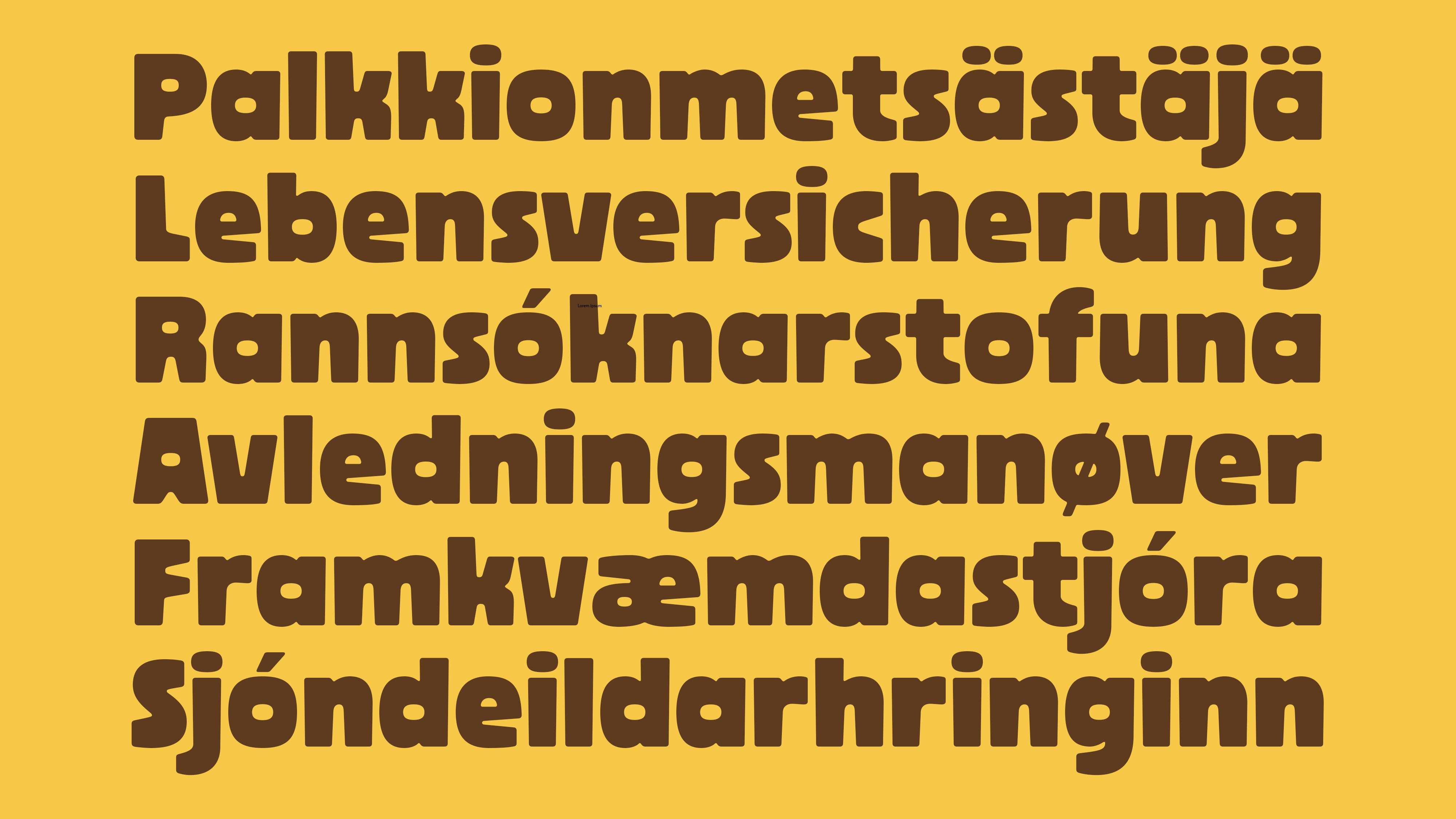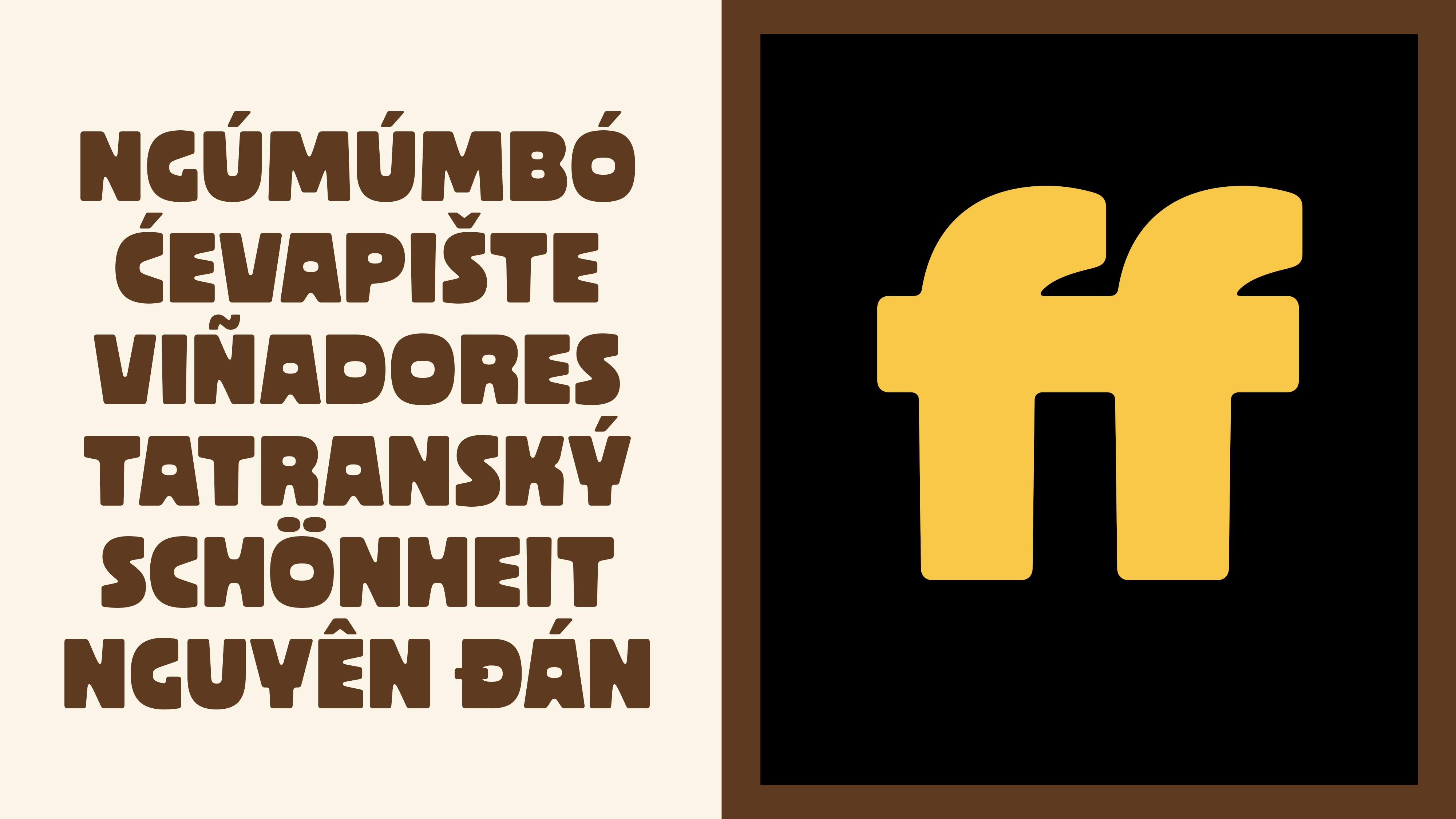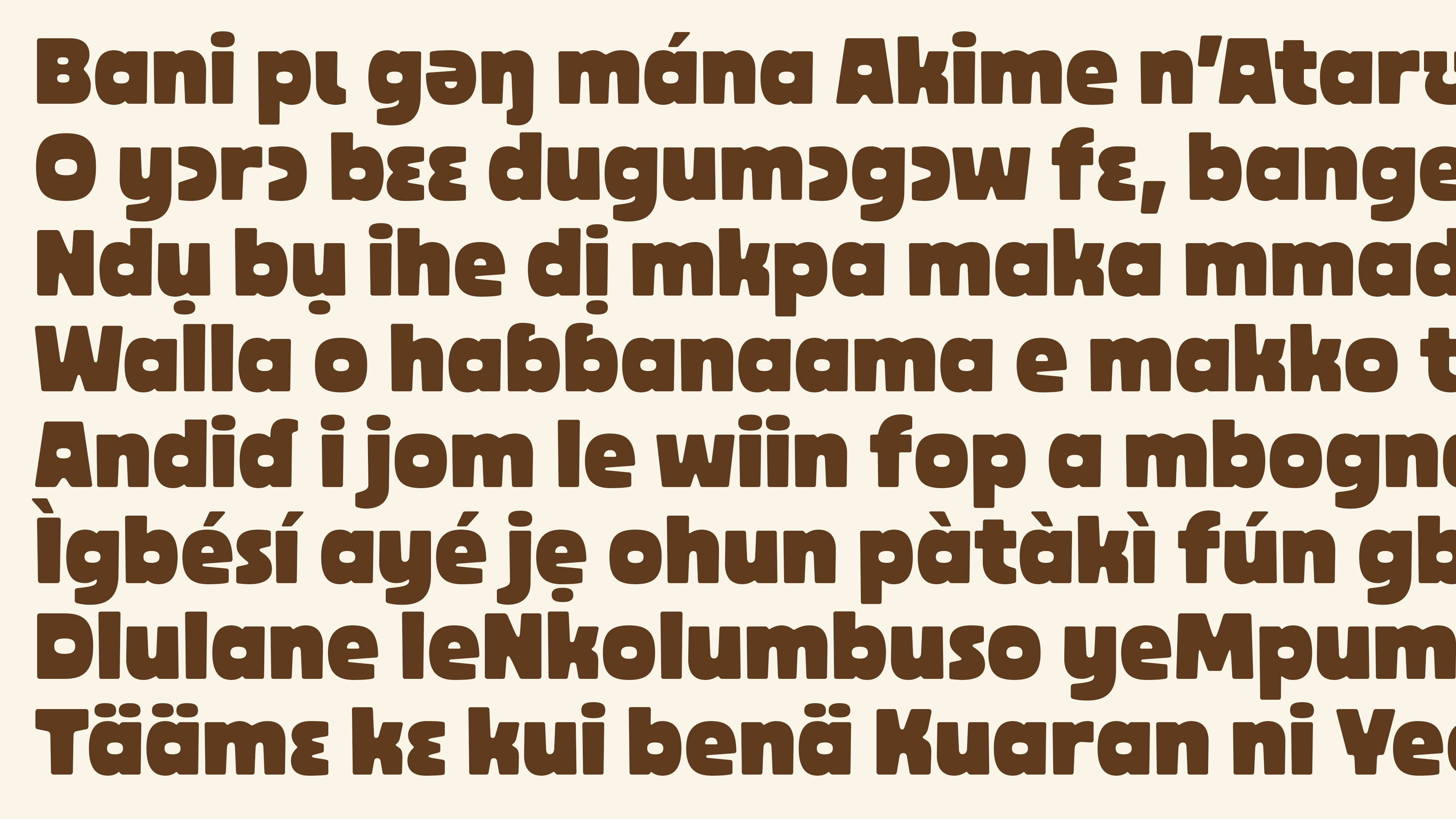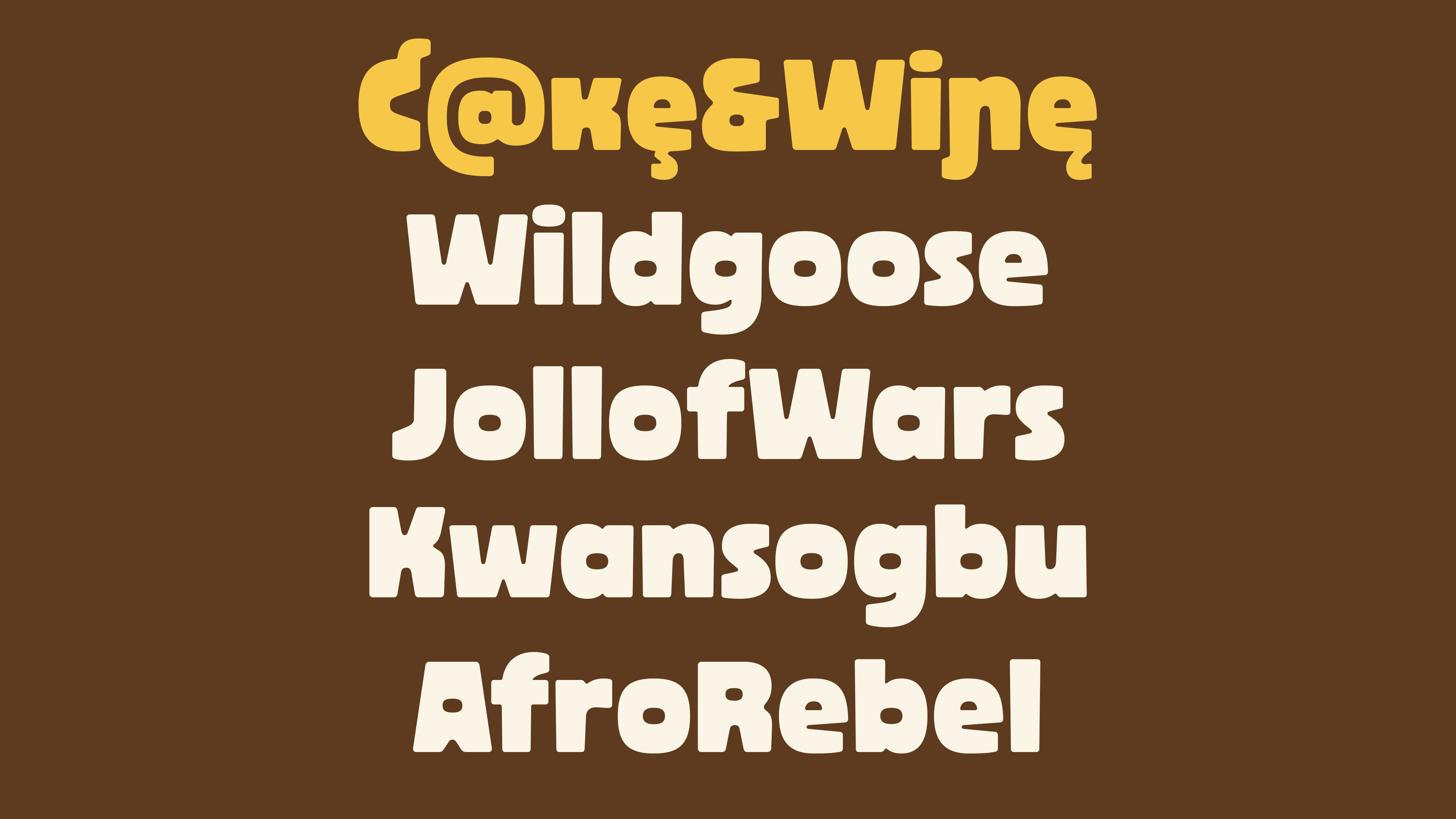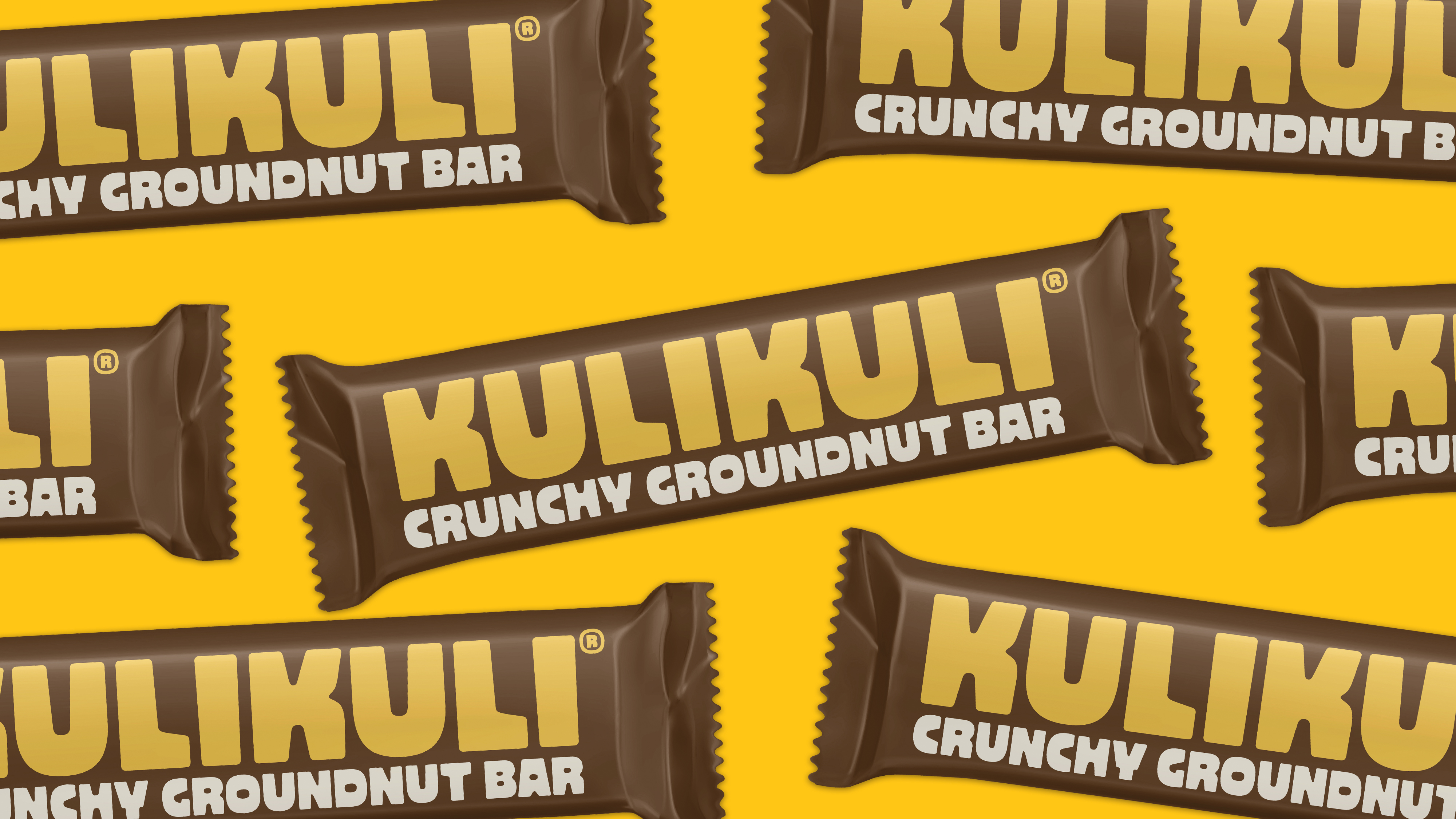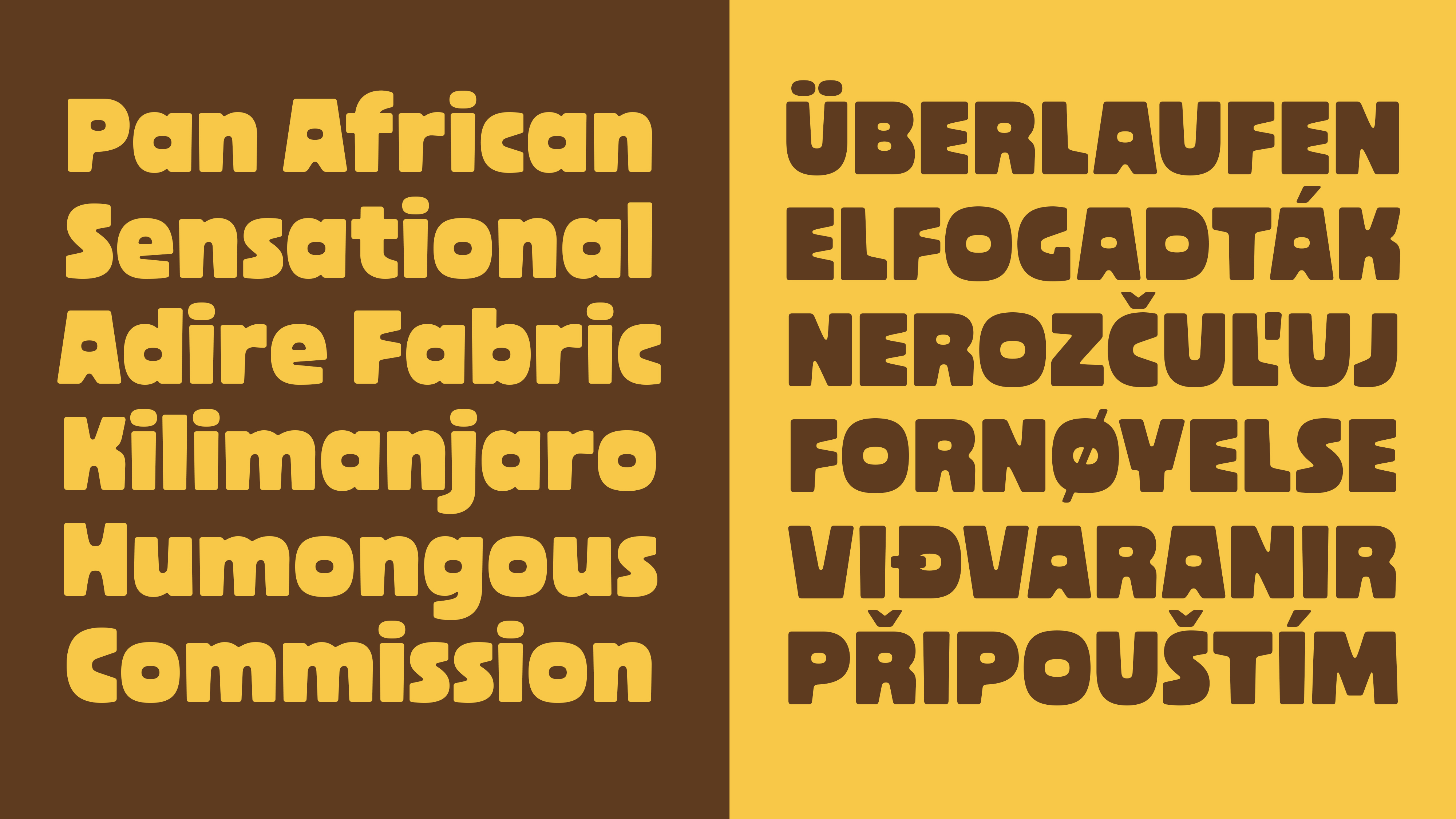
Oja Display
Oja Display is an expressive display typeface inspired by the Oja, a traditional flute from Eastern Nigeria. The design translates the instrument’s finger-hole patterns and breath-driven tapering into bold, sculptural letterforms.
Echoing tradition, shaping the present, Oja Display carries the voice of ancestry in every letter. It is ideal for impactful headlines, editorial design, branding, and cultural projects. Its character set—including punctuation, figures, and diacritics—was drawn with attention to counterbalance, spacing, and optical refinement. The result is a typeface that merges cultural storytelling with modern typographic craft, proposing a fresh perspective on how African material culture can inspire new typographic forms.